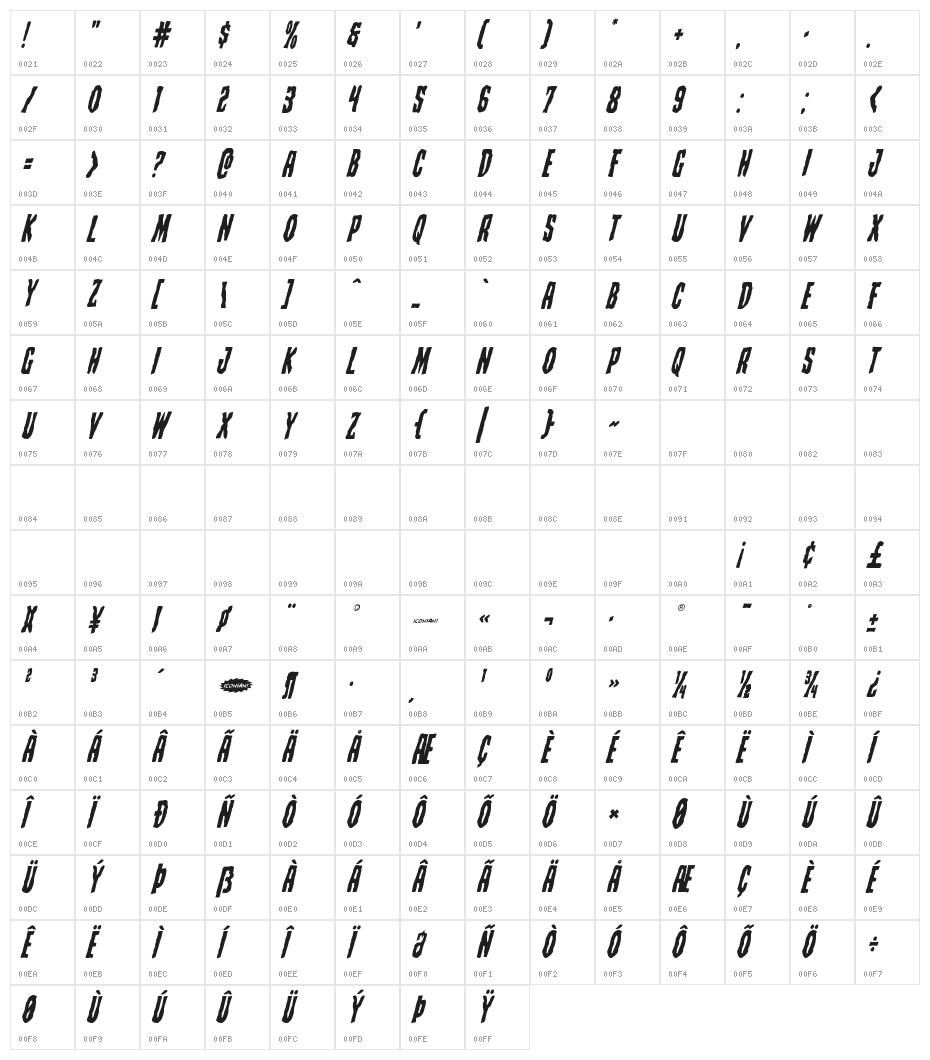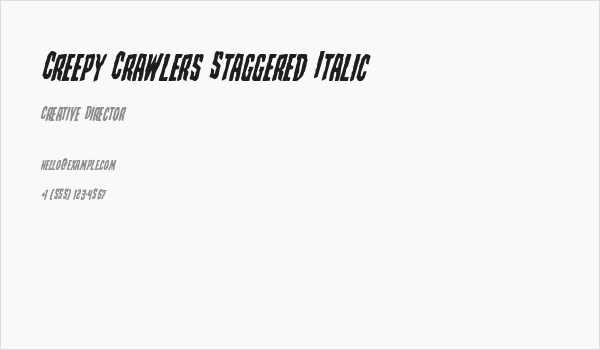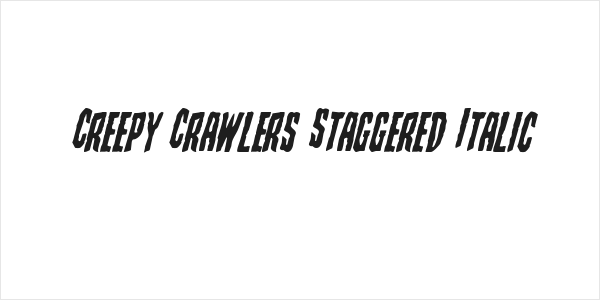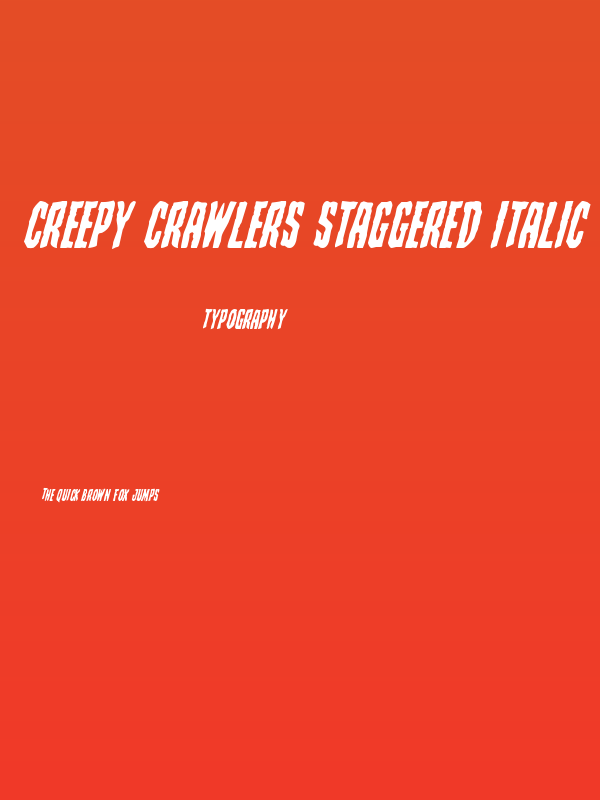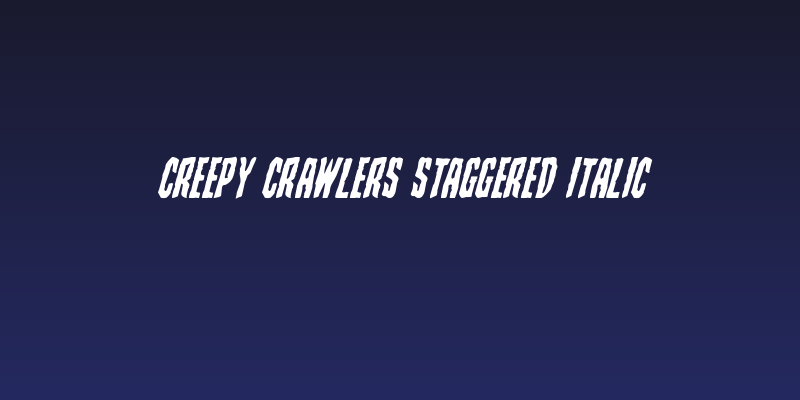
Creepy Crawlers Staggered Italic Font
Creepy Crawlers Staggered Italic Description
This font features a bold and dynamic style with a staggered italic slant, giving it a sense of movement and energy. The characters are thick and robust, with irregular edges that create a slightly distressed appearance. This adds a unique, edgy feel to the font, making it stand out in any design. The uppercase and lowercase letters maintain consistent width, while the numbers and special characters are designed to match the overall aesthetic. The font's boldness and slant make it ideal for grabbing attention and conveying a sense of urgency or excitement.
| Use Case | Headlines, Posters, Branding |
| Proposed Projects | Perfect for horror-themed posters, Halloween invitations, edgy branding, or any project needing a bold, attention-grabbing font. |